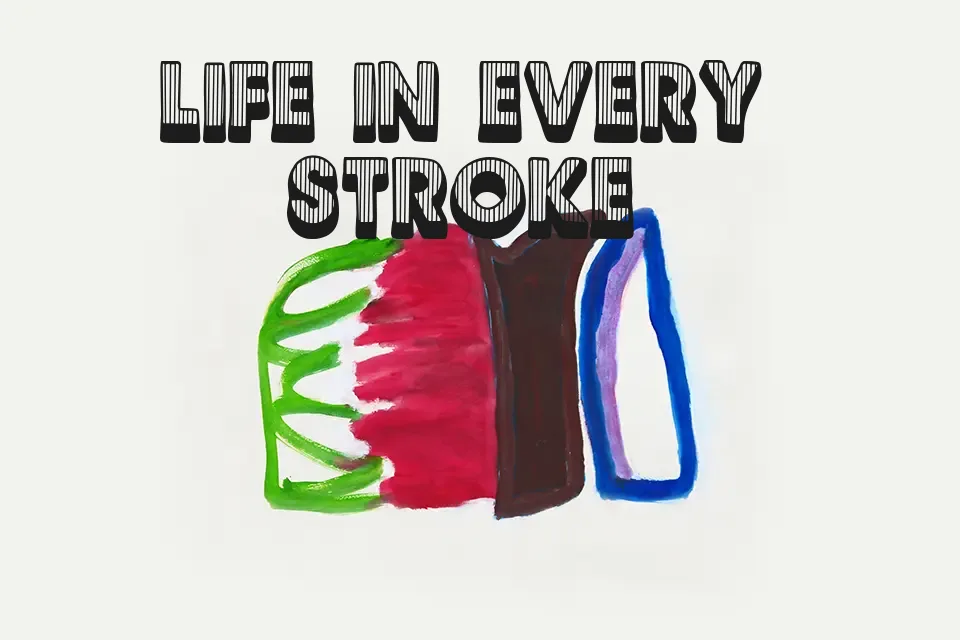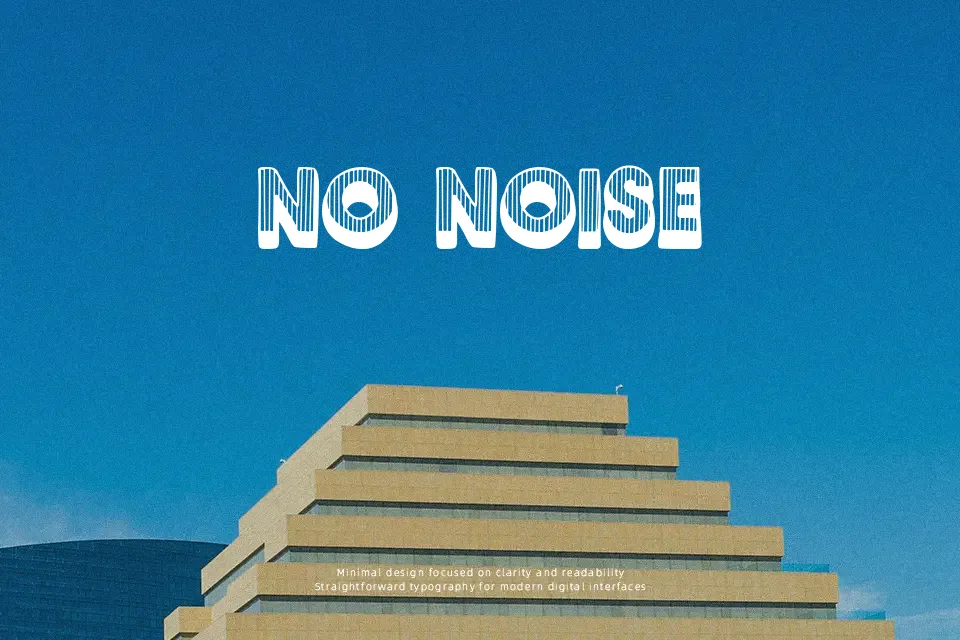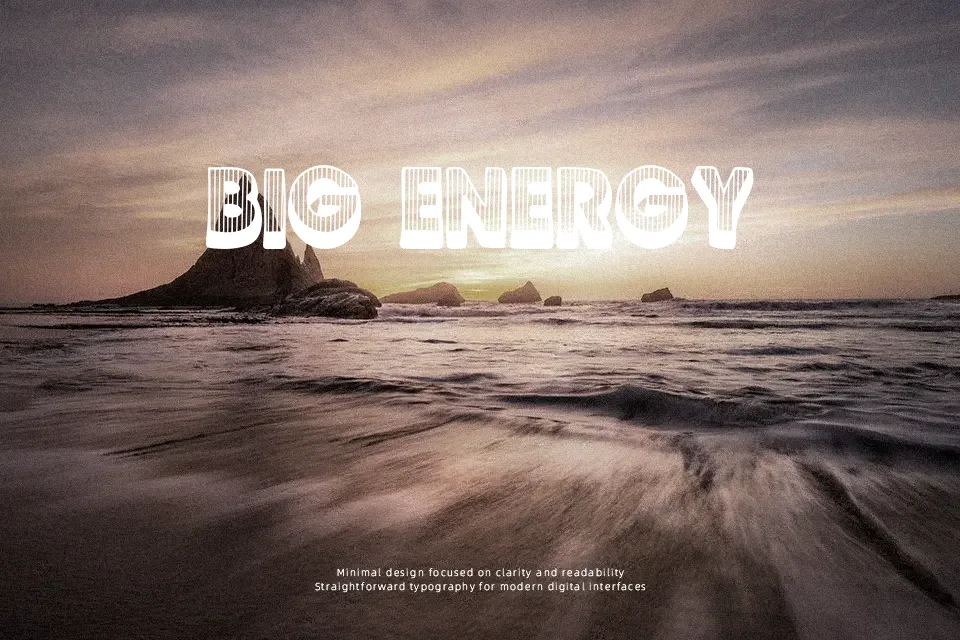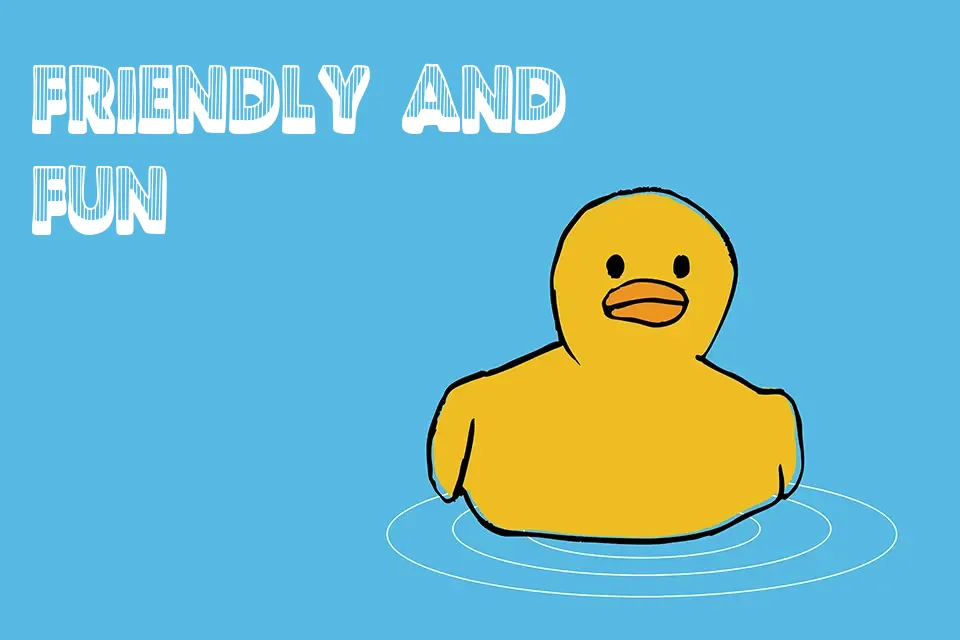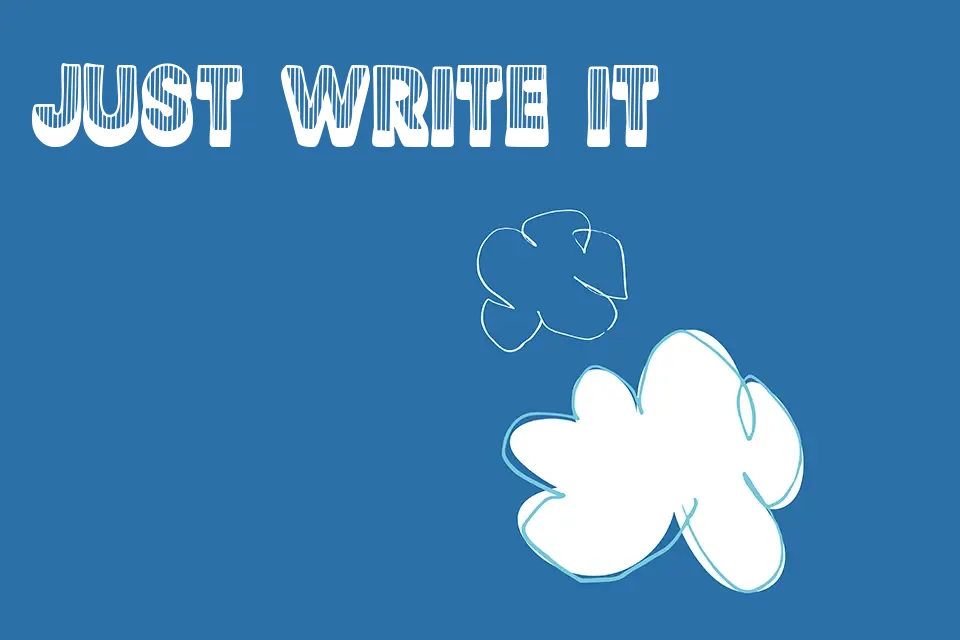
Adventure Boy Font
Adventure Boy carries that loose, hand-lettered quality where strokes feel intentionally imperfect — slightly uneven baselines, chunky weight distribution, and a casual energy that leans into youthful excitement. It reads as decorative display rather than refined script, making it a practical fit for children’s book covers, summer camp branding, or action-themed packaging where a sense of movement helps. The spacing is generously open, which helps legibility at headline sizes. That said, drop it below 24pt and readability starts breaking down quickly — small captions or dense body copy are where this font struggles most. If you need consistent professionalism across a layout, the hand-drawn irregularity can feel out of place alongside structured typefaces. Works best when it stands alone as a hero element.
– Children’s book covers and activity kit headers
– Indie game title screens or mobile game UI
– Adventure camp or outdoor event promotional materials
– Youth sports team merchandise and apparel graphics
– Body text or any copy below display size
– Corporate, legal, or formal document typography
– Multilingual layouts requiring extended character support
– Pairing with highly structured geometric or serif typefaces
Perfect for gaming, kids, and logo, with a bold and cartoon style.